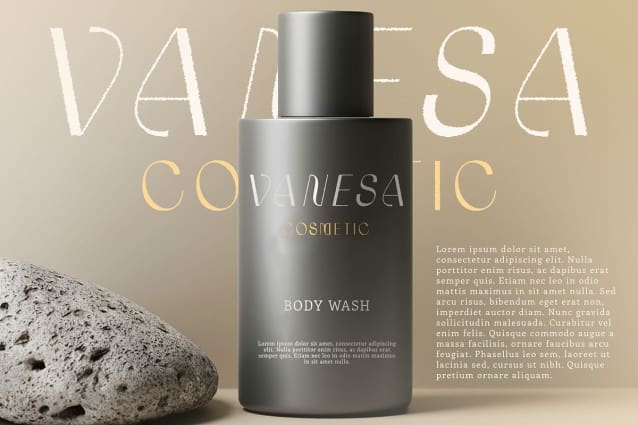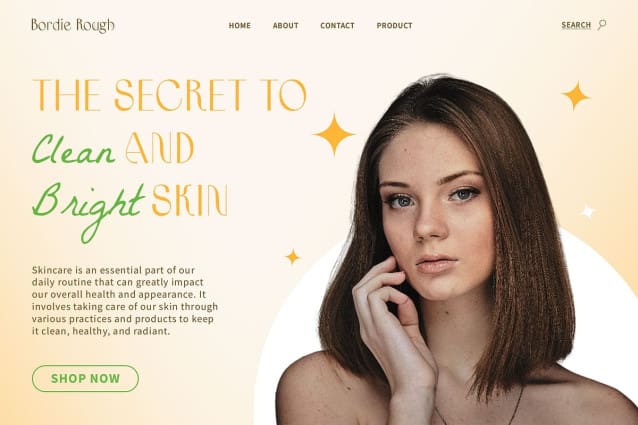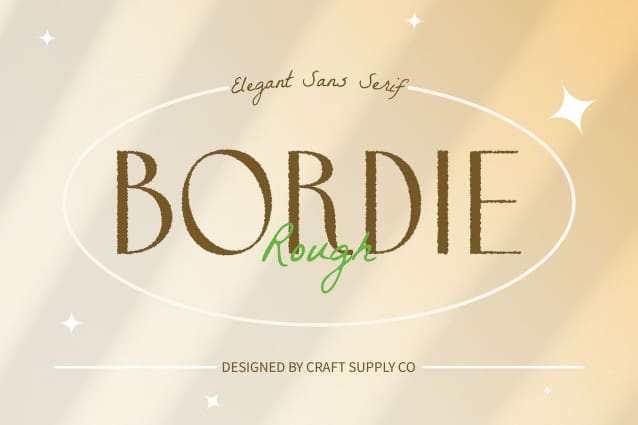
Bordie Rough Font
Bordie Rough Font: Vintage-Inspired Display Typeface. Art Nouveau Influence Bordie Rough draws inspiration from the Art Nouveau movement, infusing its design with elegant, organic motifs reminiscent of the era’s intricate style.
Sans Serif Condensed Elegance With its sleek sans serif condensed form, This font exudes a sense of modernity and sophistication, making it ideal for bold display purposes.
High Contrast and Vintage Roughness The high contrast in This font letterforms, combined with its vintage rough effect, adds character and authenticity, evoking a nostalgic feel reminiscent of bygone eras.
Versatile Application From branding projects to editorial designs and beyond, This font proves its versatility in various contexts, adding a touch of retro charm to any visual composition.
Nostalgic Display Typeface This font offers a captivating blend of Art Nouveau inspiration, sans serif elegance, and vintage roughness. Its unique combination of elements makes it a standout choice for designers seeking to infuse their projects with a touch of nostalgic charm and contemporary flair.